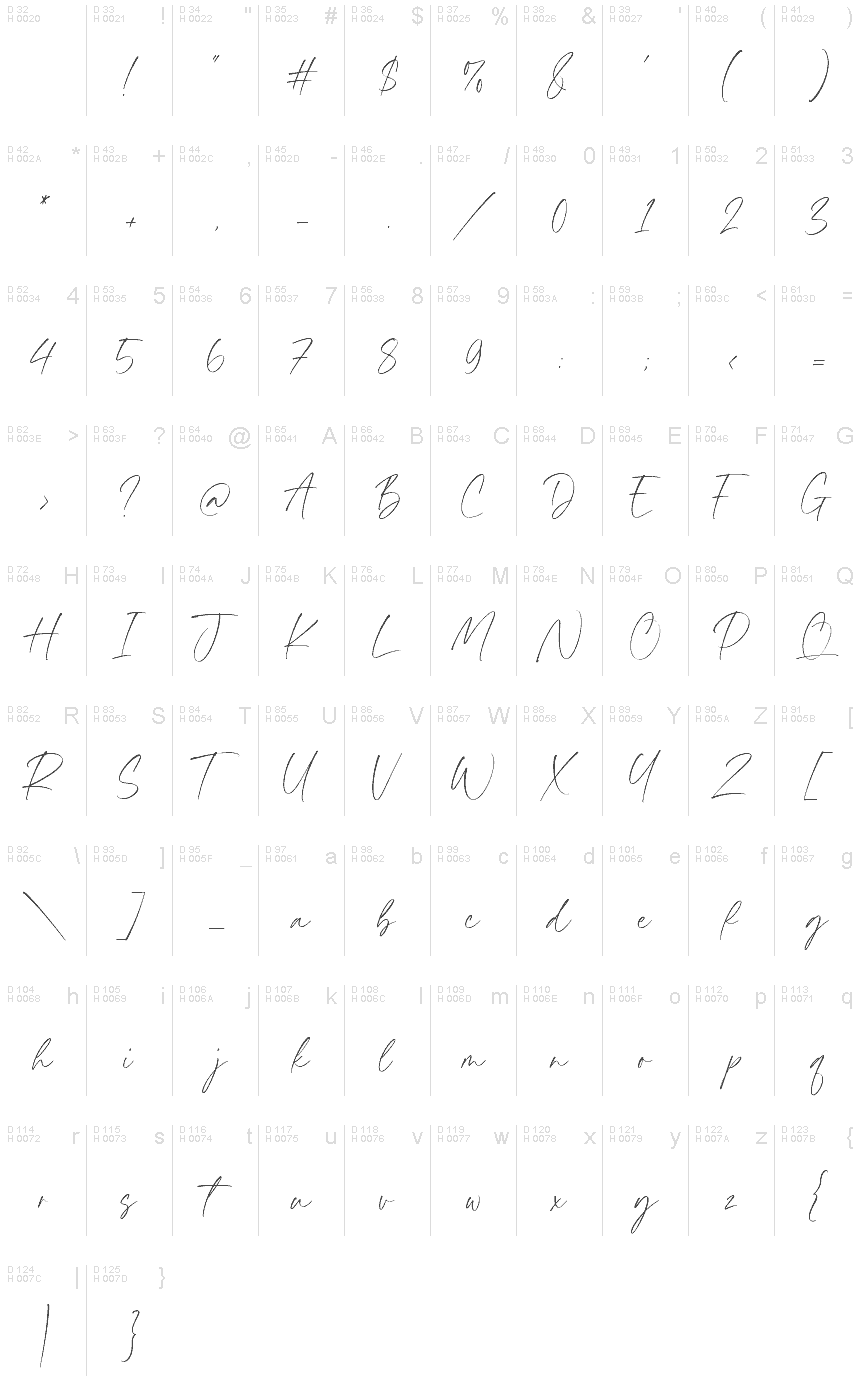
Aromatic Signature
Aromatic Signature font is Timur Type’s light weight handwritten font that carries a flowing and elegant style. With its signature script overall look, it presents an appealing modern design, harmonious letters, and curves with an organic effect.
This free signature font can be used for branding purposes like logos and typography or as part of website designs. Extend your artwork collection with this tool for menus, birthdays and special cards, monograms, posters, book covers, etc.